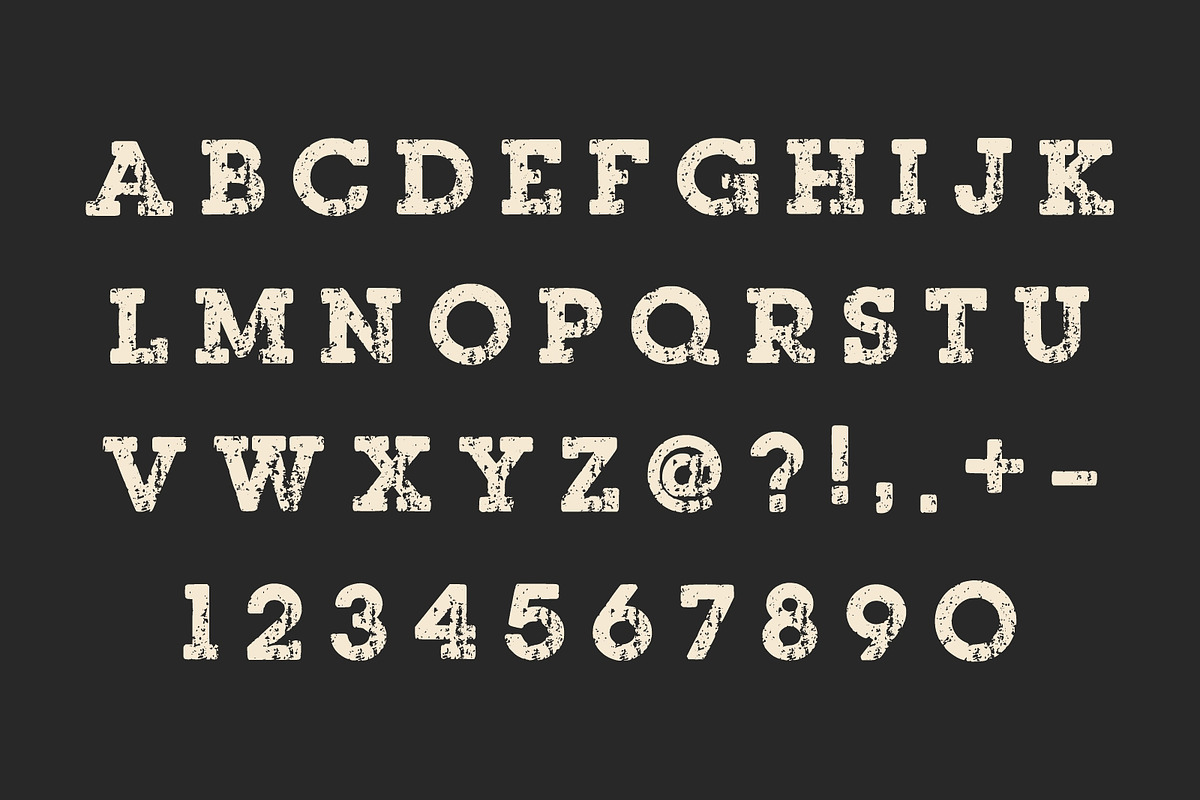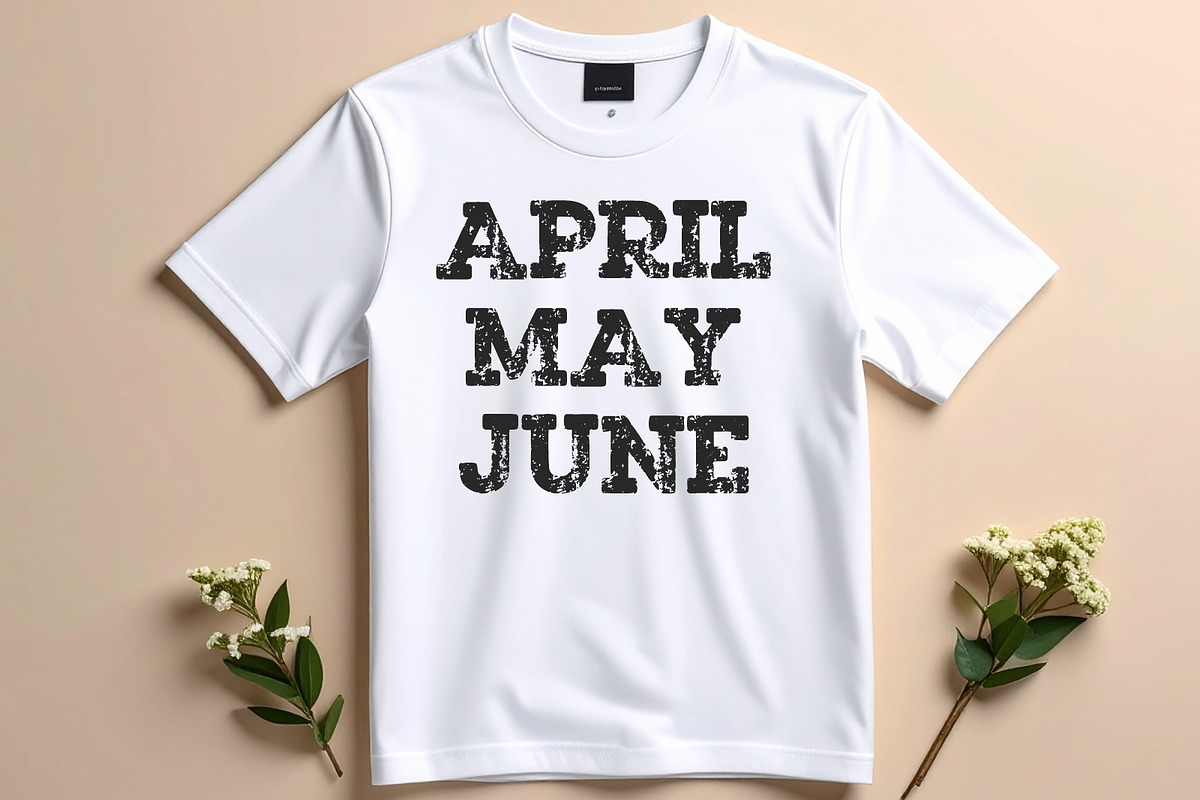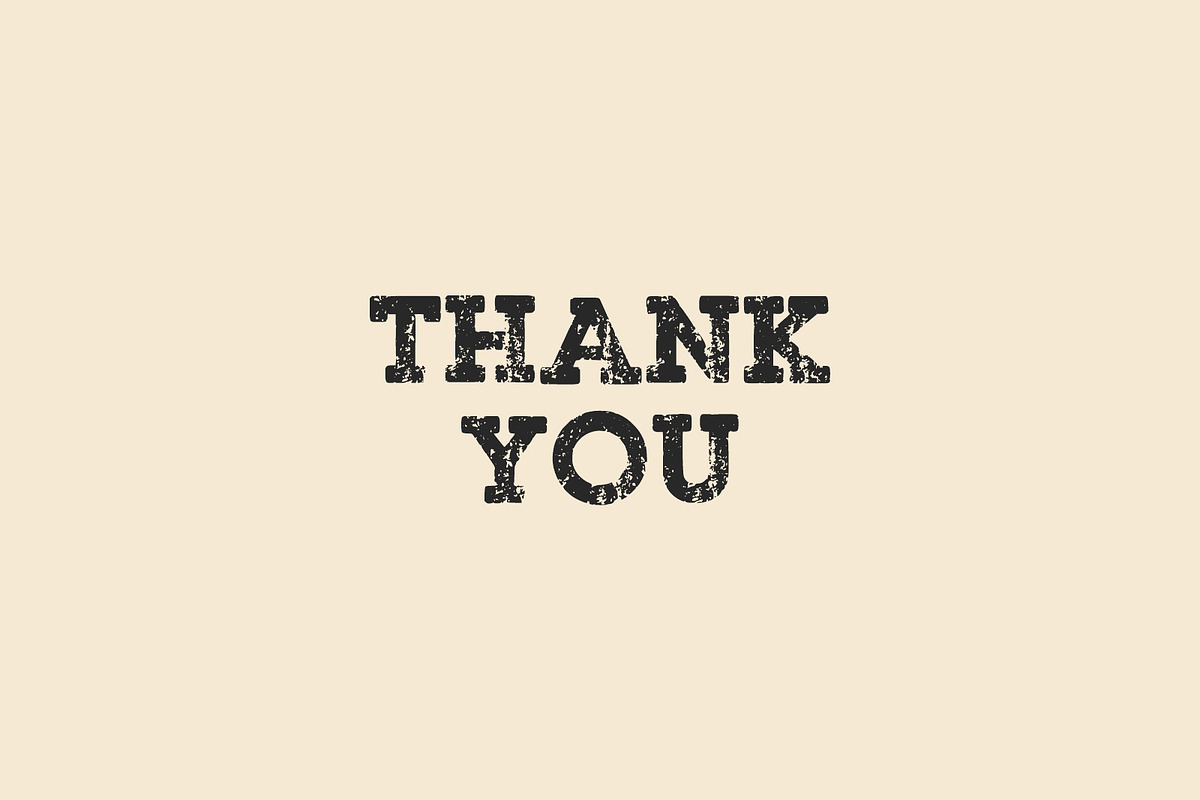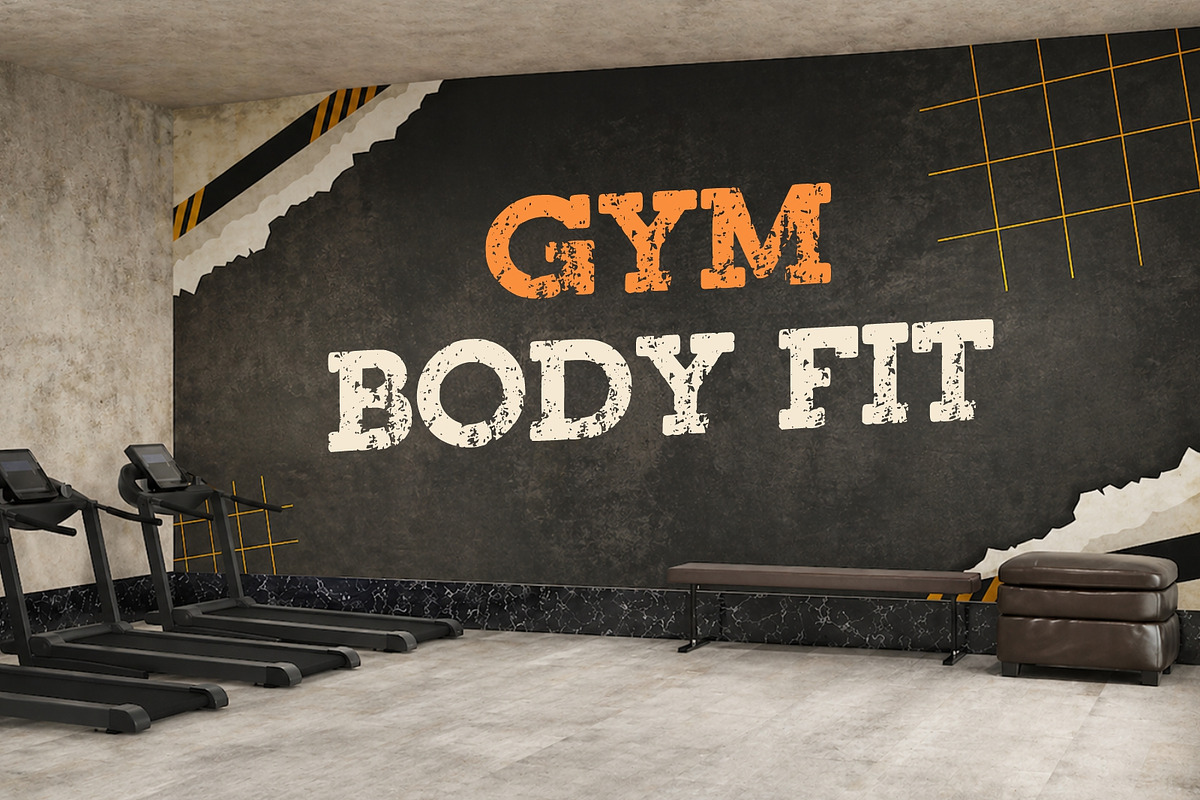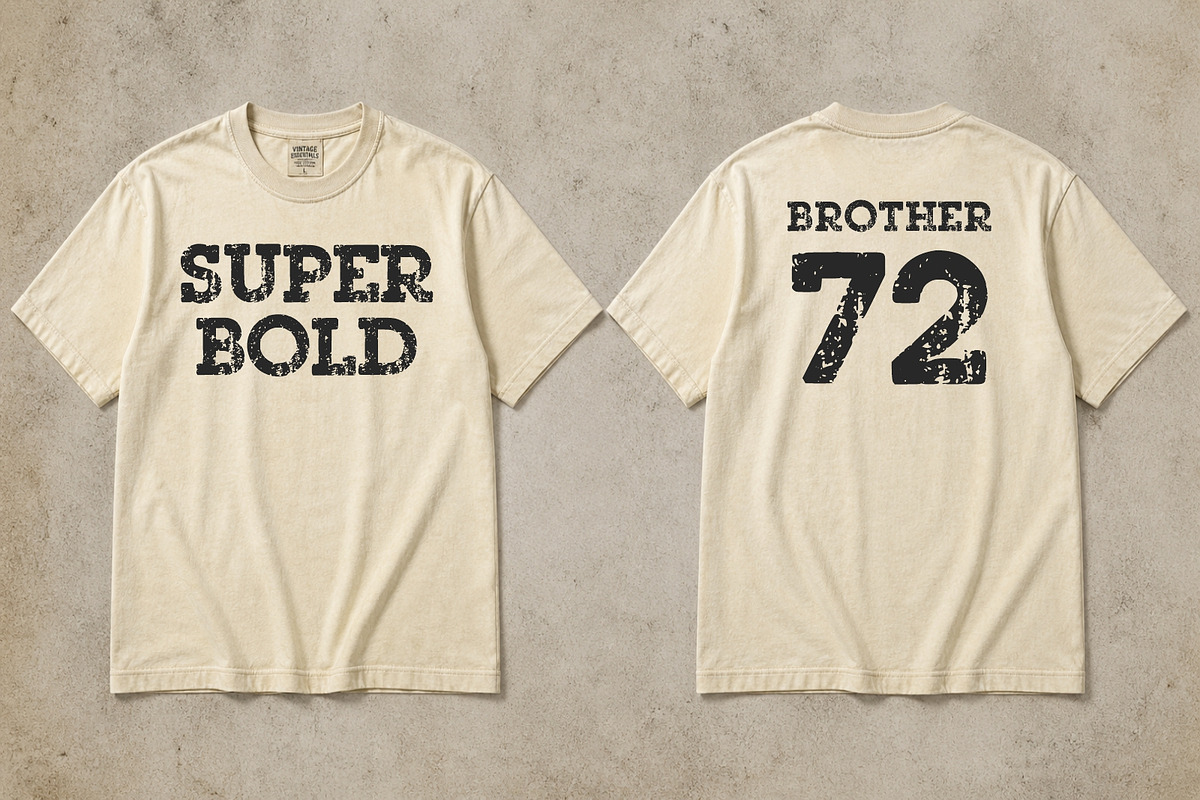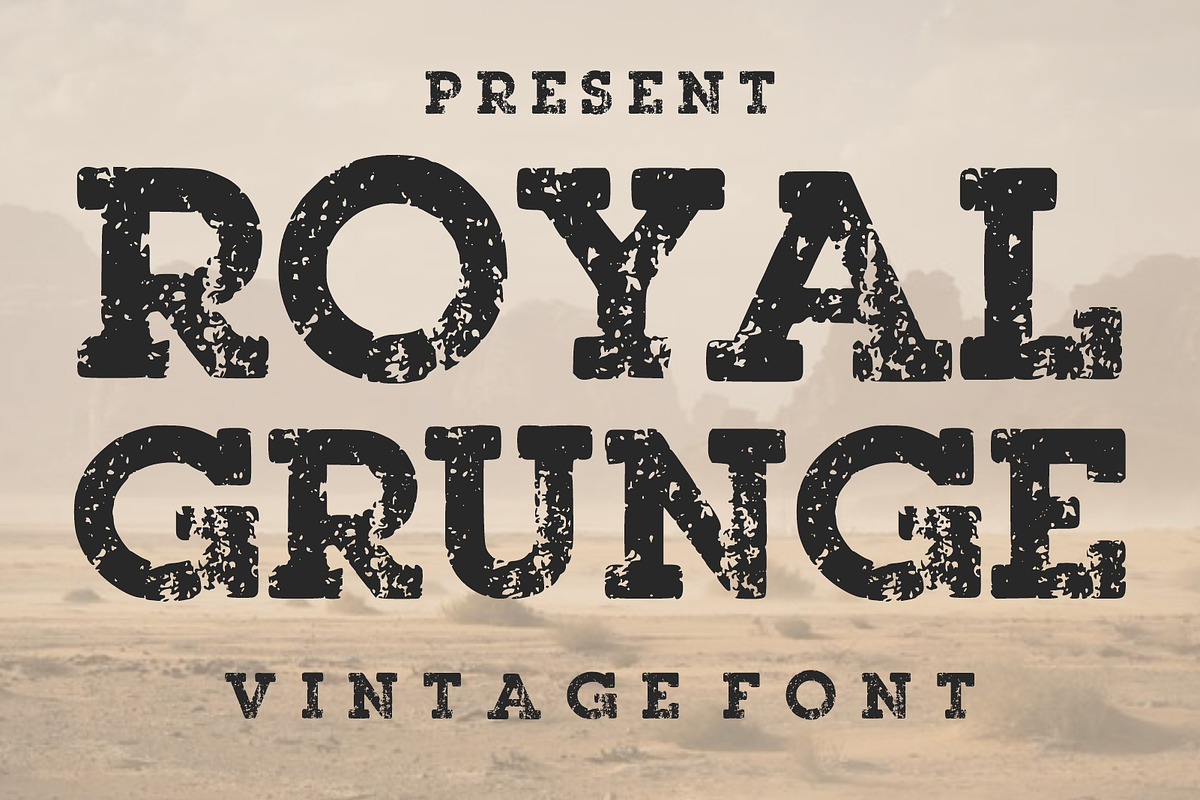
Royal Grunge Vintage Font
Royal Grunge Vintage Font is a bold and rugged display typeface inspired by classic western and retro typography. Featuring distressed textures and strong serif letterforms, this font delivers an authentic worn-out look perfect for vintage-themed designs. Ideal for posters, logos, branding, apparel, packaging, labels, and rustic projects, it brings a timeless and bold character to any creative work. Its grunge style adds depth and personality, making your designs stand out with a classic retro feel